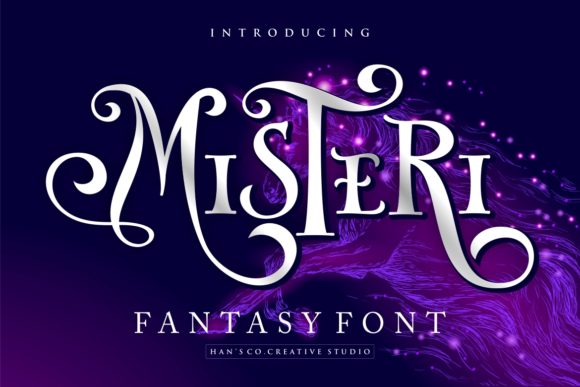
Get ready to elevate your creative projects to a whole new level with the stunning Misteri font. Created by HansCo, this display font is the perfect choice for those who want to add a touch of elegance and mystery to their designs.
With its delicate and intricate swashes and ligatures, Misteri is more than just a font – it's a work of art. This versatile script is perfect for a variety of projects, from Instagram posts to calligraphy scripts and even magic- or wizard-themed designs.
Misteri is more than just a font – it's a tool that will help you unleash your creativity and bring your ideas to life. Whether you're a professional designer or just starting out, this font is sure to impress.
With its captivating and mysterious vibe, Misteri is perfect for creating eye-catching logos, branding materials, invitations, and so much more. And with its easy-to-use features, including multilingual support and various stylistic alternates, you can customize the font to suit your exact needs.